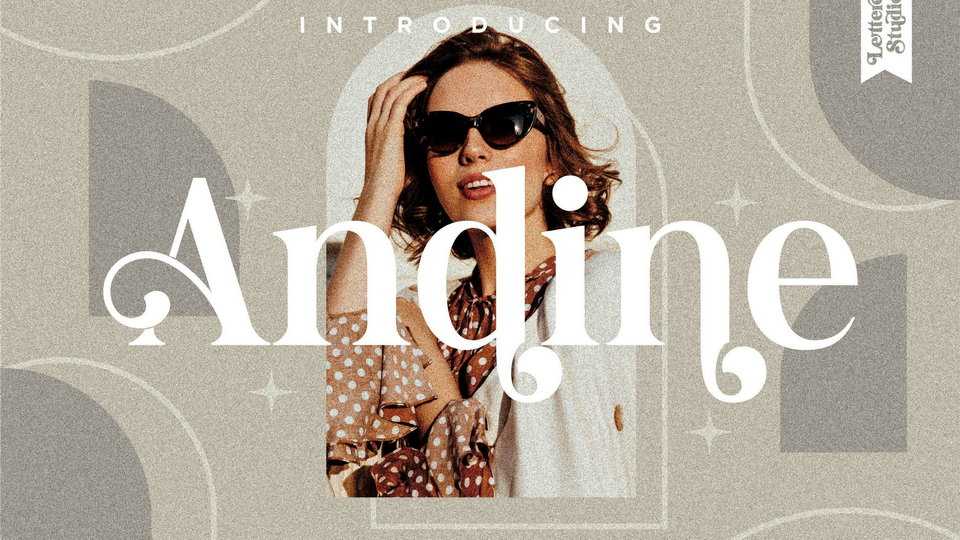
Download Andine font, a luxury serif typeface with lovely swashes. Andine is suitable for any projects such as: logos, branding, posters and other fashion and media projects.